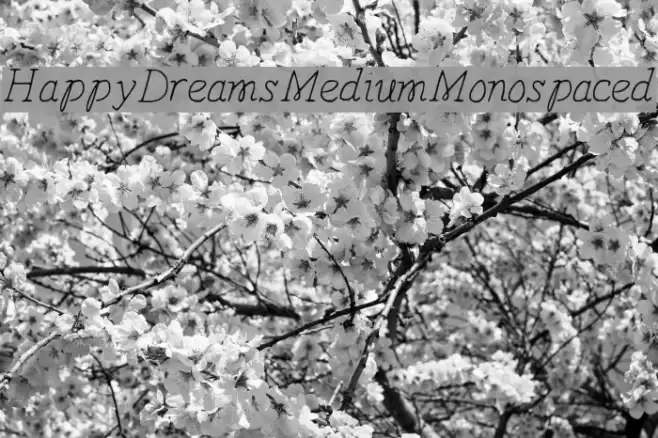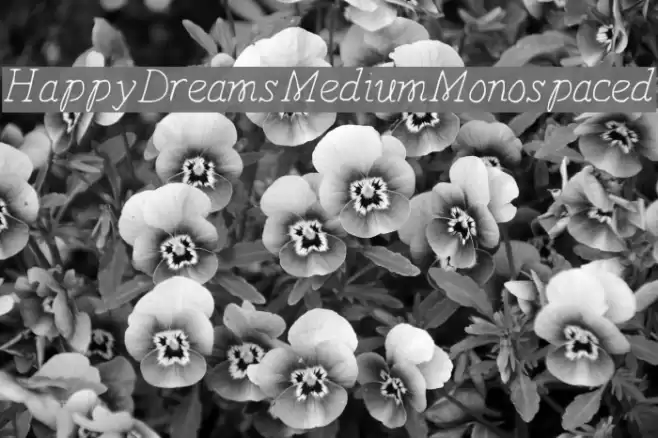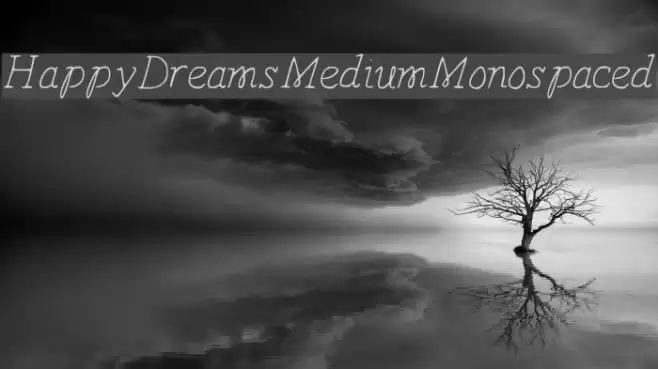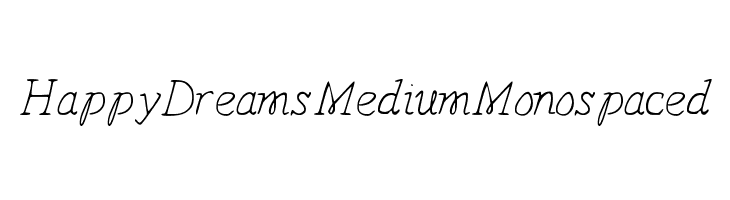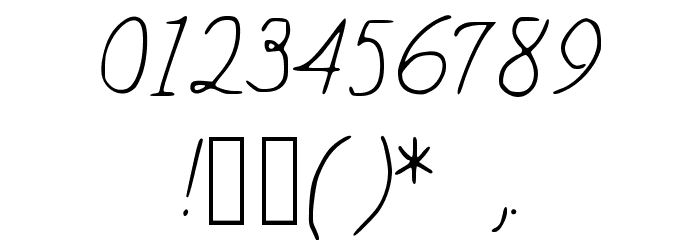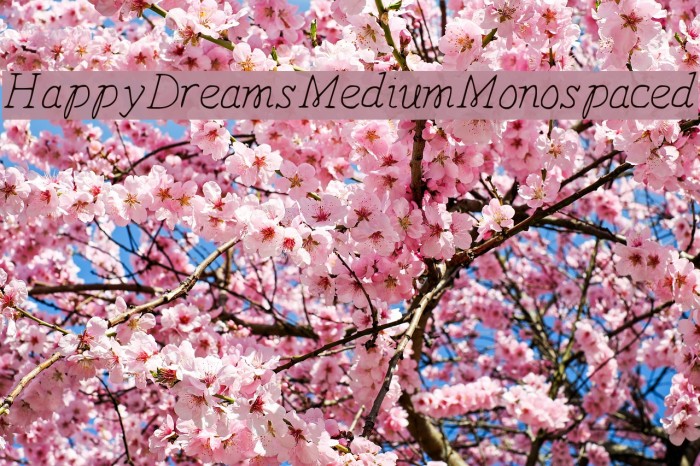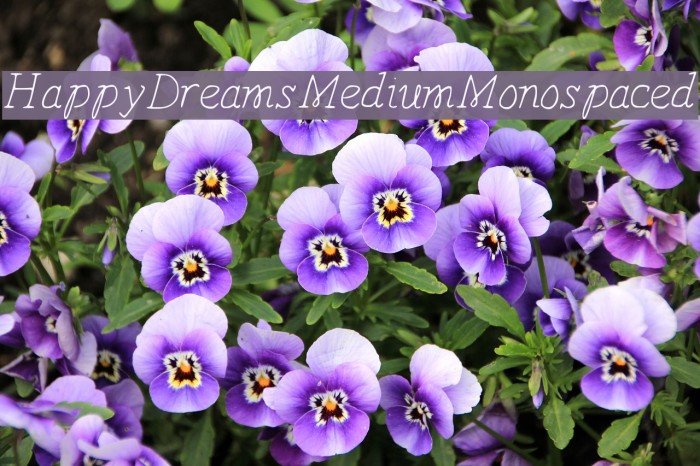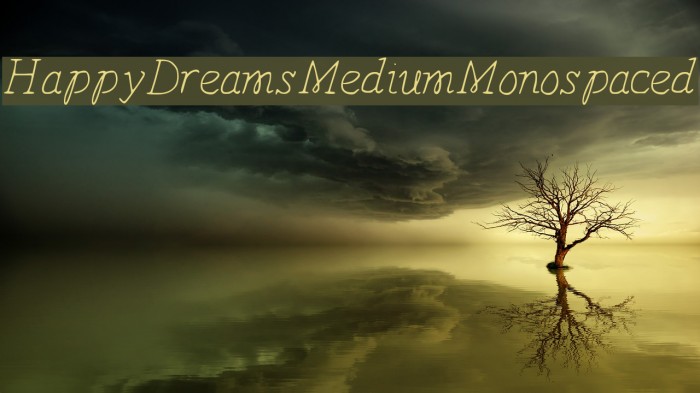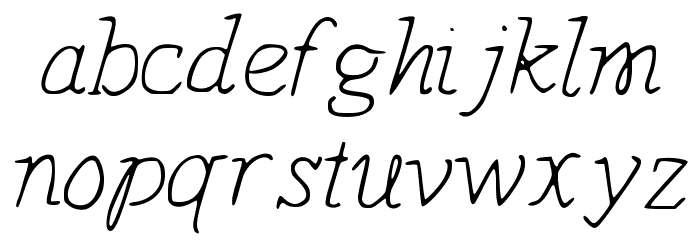
HappyDreams-MediumMonospaced
This font features a monospaced design with a medium weight, offering a balanced and consistent appearance across all characters. The letters are slightly slanted, giving a cursive-like feel while maintaining a structured and uniform look. The uppercase and lowercase letters are distinct, with a smooth flow that enhances readability. The numerals are clear and well-defined, matching the overall style of the alphabet. Special characters are elegantly integrated, maintaining the font's cohesive aesthetic. The font's design is both functional and visually appealing, making it suitable for various applications.
A medium-weight, monospaced font with a cursive-like slant and consistent character design.
- Proposed Projects: Ideal for coding environments, technical documentation, and creative projects requiring a unique yet readable typeface.
- Category: Monospaced
- Use Case: Body text, Coding, Technical documentation